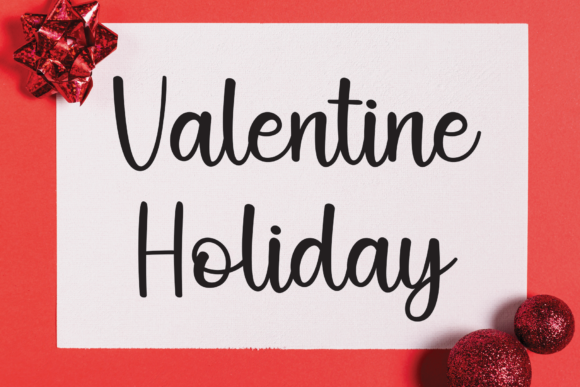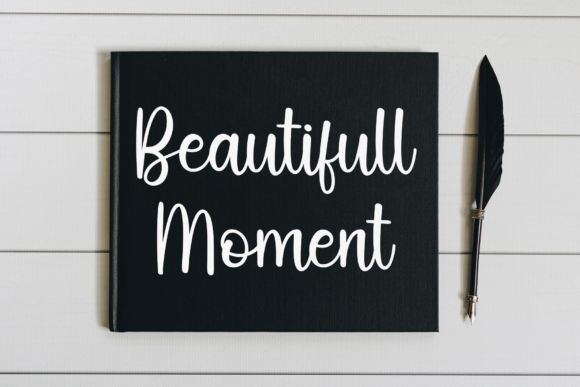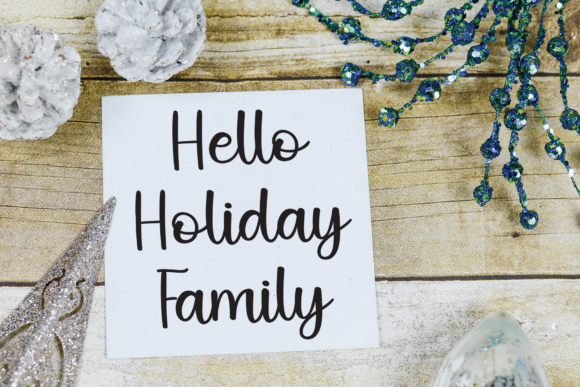
Introduction to Quilt Font
this is a simple and thin case script font.
Fall in love with its ravishing style and use it to create gorgeous wedding invitations, beautiful stationary art, engaging social media posts and more .
Quilt Font offers exceptional quality and versatility, making it a valuable addition to your design toolkit. Whether you’re creating for personal projects or commercial use, Quilt Font delivers professional results.